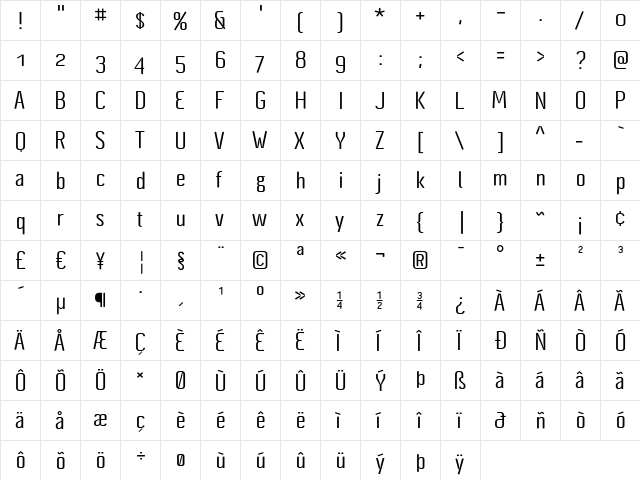
Cynapse Pro OSF Bold
| Designer | Neil Summerour/Positype |
Design Context for Cynapse Pro OSF Typeface
Cynapse Pro OSF is a composed and adaptable typeface that performs quietly and consistently across a wide range of design contexts. The heavy weight commands attention and anchors typographic hierarchies.